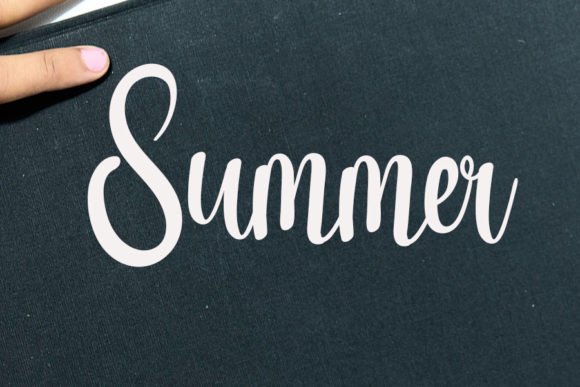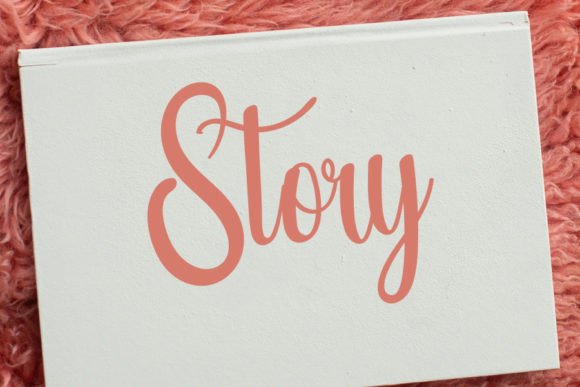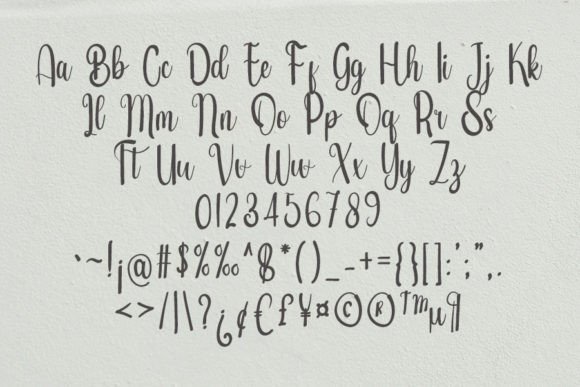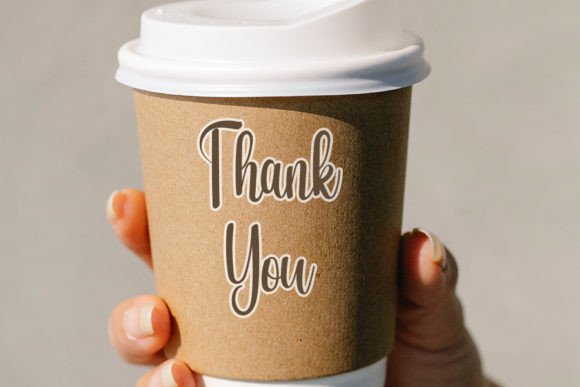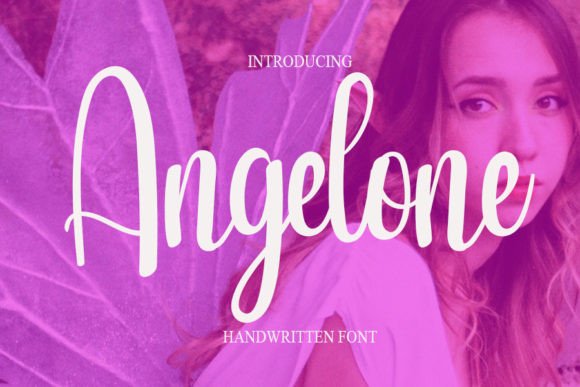
The Quest for the Perfect Font: Discovering Angelone
Ah, the eternal struggle of finding the perfect font for your design project. I recall a particularly frustrating moment when I was working on a branding project for a boutique client. The logo design was almost complete, but I just couldn’t find a font that matched the elegance and sophistication of the brand. That was until I stumbled upon Angelone, a friendly handwritten font that instantly became my go-to. In this article, I’ll share my experience with Angelone, its features, and how to make the most of it in your creative projects.
An Honest Review of Angelone
What I Love About Angelone ✨
- ✅ Classy calligraphic influences that add a touch of sophistication to any design
- ✅ Contemporary and fresh feel that makes it perfect for modern brands
- ✅ Extensive character set, including OpenType features and stylistic alternates
- ⚠️ Some users may find the font a bit too ornate for very casual or playful designs
- ⚠️ Limited availability of certain characters, such as ligatures
The Backstory of Angelone
Angelone was designed by a team of typographers who wanted to create a font that would bring a touch of elegance and sophistication to any design. Inspired by traditional calligraphy, they carefully crafted each letterform to ensure that it was both beautiful and legible. The result is a font that’s perfect for creative projects that require a classy, yet modern feel.
Q: What is the x-height of Angelone?
A: The x-height of Angelone is approximately 0.55, making it easy to read and understand.